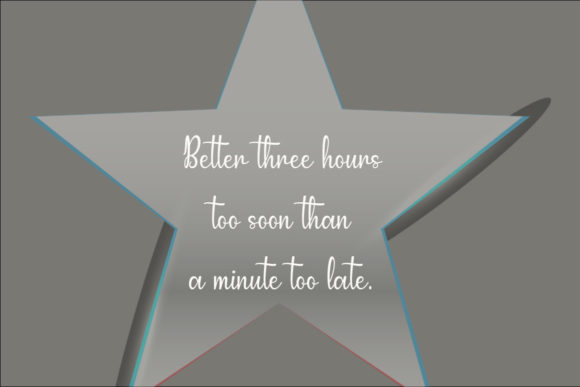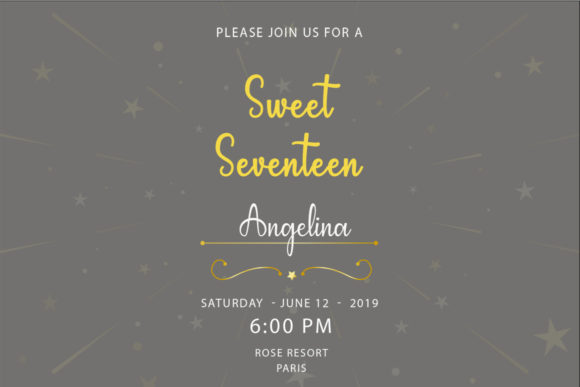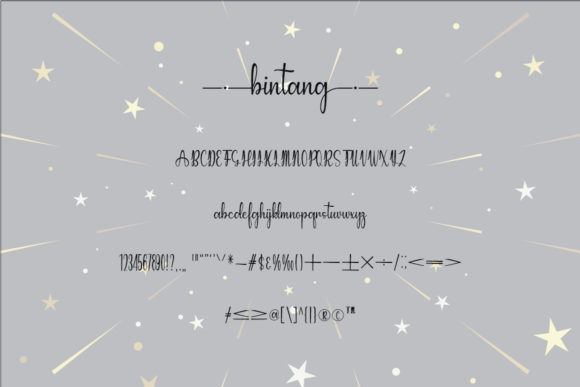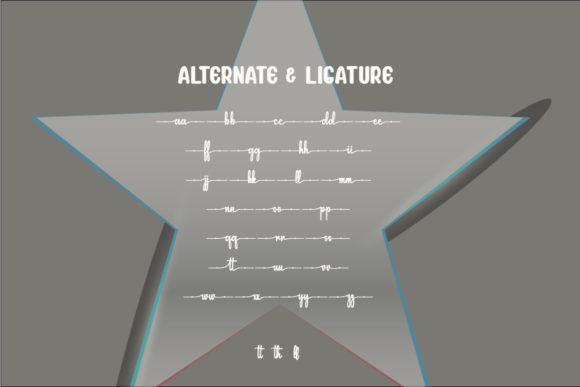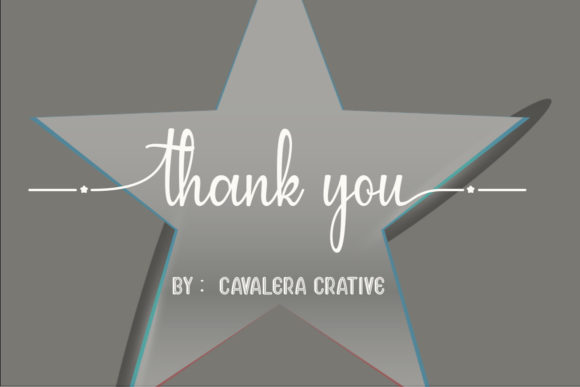
The Magic of Handwritten Typography: Unveiling the Bintang Font
As I sat in my studio, surrounded by scribbled notes and scattered papers, I was on a mission to create the perfect greeting card for a dear friend’s birthday. I wanted something special, something that would make her feel loved and appreciated. And then, I stumbled upon it – the Bintang Font. Its whimsical, handwritten charm immediately caught my attention, and I knew I had found the perfect match.
The Bintang Font is a versatile script font designed to add a personal touch to various design projects. From greeting cards to headlines, its enchanting style can elevate any piece of content. As a designer, I can attest to the value of having a reliable font like Bintang Font in your toolkit. With its PUA encoding, accessing the glyphs and swashes is a breeze, making it a must-have for any creative project.
Bintang Font Key Features
- Font Family: Bintang Font is a unique, hand-drawn font family designed for various applications.
- Unique Characteristics: This font family features intricate, hand-drawn details and a distinctive aesthetic, making it ideal for creative projects and branding.
Bintang Font Review
I recently had the chance to work with the Bintang Font, and I have to say, it’s a unique and intriguing choice. ✨ Here are some of the things that stood out to me:
- Exotic flair**: Bintang brings a distinct Asian-inspired aesthetic to the table, making it perfect for designers looking to add some cultural flair to their projects.
- Versatility**: This font is surprisingly versatile, working well for both digital and print projects, from logo designs to magazine layouts.
- Playful feel**: Bintang’s playful, handwritten feel makes it an excellent choice for creative projects that require a touch of whimsy.
However, I did encounter some limitations during my review:
- Legibility**: In certain font sizes, Bintang can become difficult to read, especially for body text. This may require additional styling or sizing adjustments.
- Limited character set**: The font’s character set is relatively limited, which may cause issues for designers working with non-English languages.
Overall, I found Bintang Font to be a bold and eye-catching choice that’s perfect for designers looking to add some exotic flair to their projects. While it may have some limitations, its unique aesthetic and versatility make it a solid addition to any designer’s toolkit.
The Bintang Font is ideal for creating a unique and eye-catching design. Some common use cases include:
Alternatives to Bintang Font for Designers
Monserrat is a sans-serif font designed by Jessica Hische and Jonatha Sarty. It is a modern, clean, and geometric font that works well for digital products, apps, and websites. Montserrat is more geometric and modern compared to Bintang Font, making it a great choice for minimalist designs.
Use Montserrat for digital products, apps, and websites that require a modern and clean look. It is also a great choice for titles and headings.
Open Sans is a sans-serif font designed by Steve Matteson. It is a clean, modern, and highly legible font that works well for a wide range of applications. Open Sans is more legible and readable compared to Bintang Font, making it a great choice for long blocks of text.
Use Open Sans for websites, articles, and documents that require a clean and readable font. It is also a great choice for body text.
Lato is a sans-serif font designed by Łukasz Dziedzic. It is a clean, modern, and elegant font that works well for digital products, apps, and websites. Lato is more elegant and refined compared to Bintang Font, making it a great choice for luxury brands and high-end designs.
Use Lato for luxury brands, high-end designs, and digital products that require an elegant and refined look.